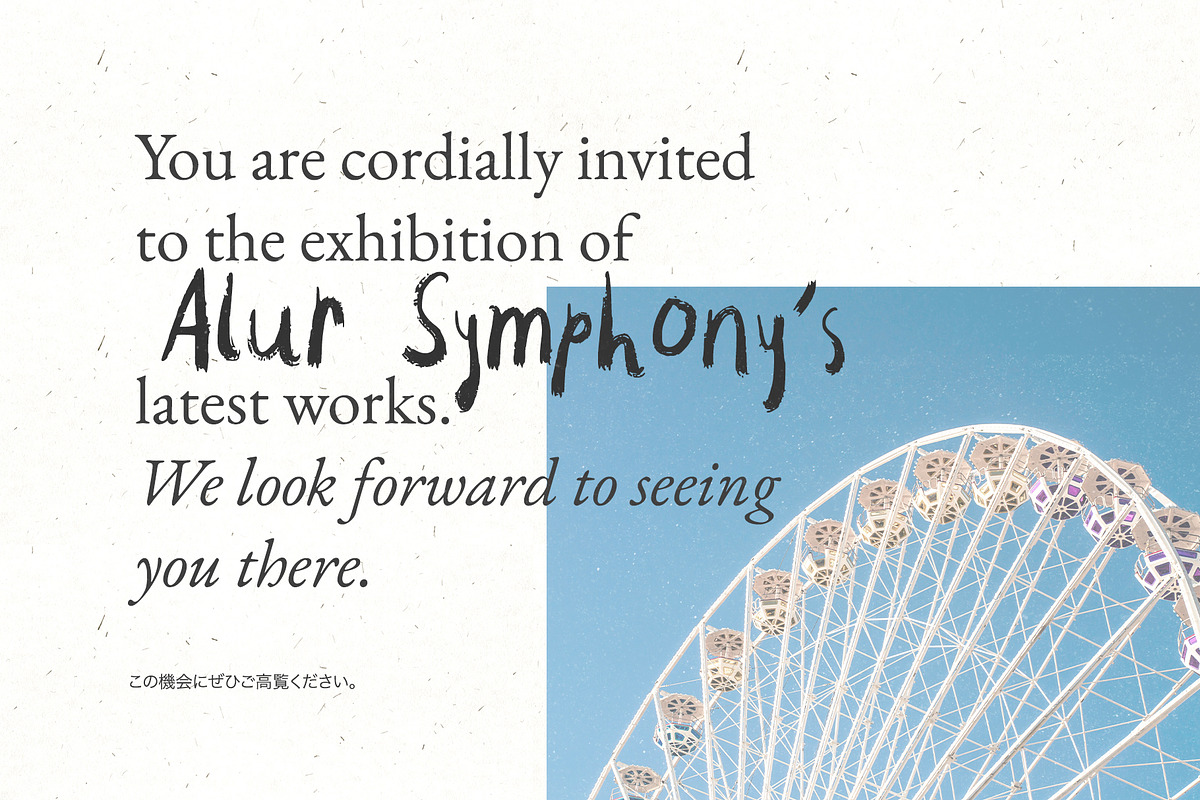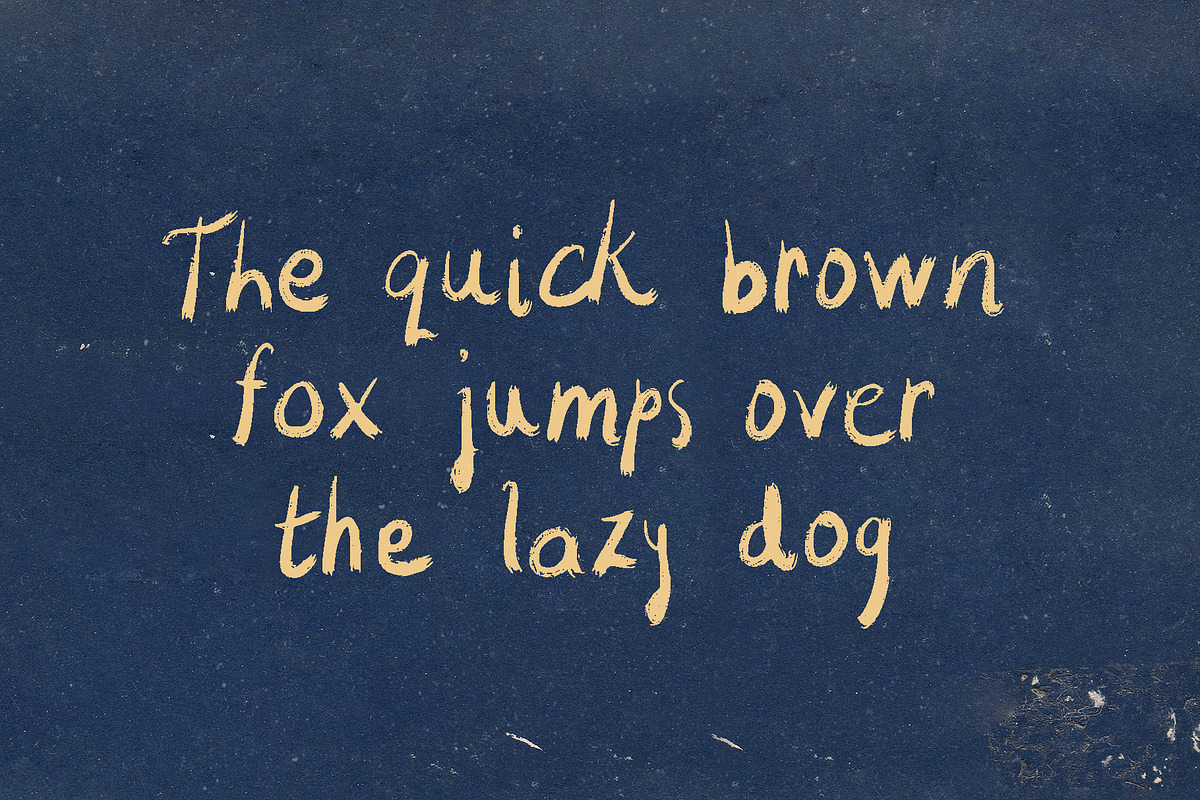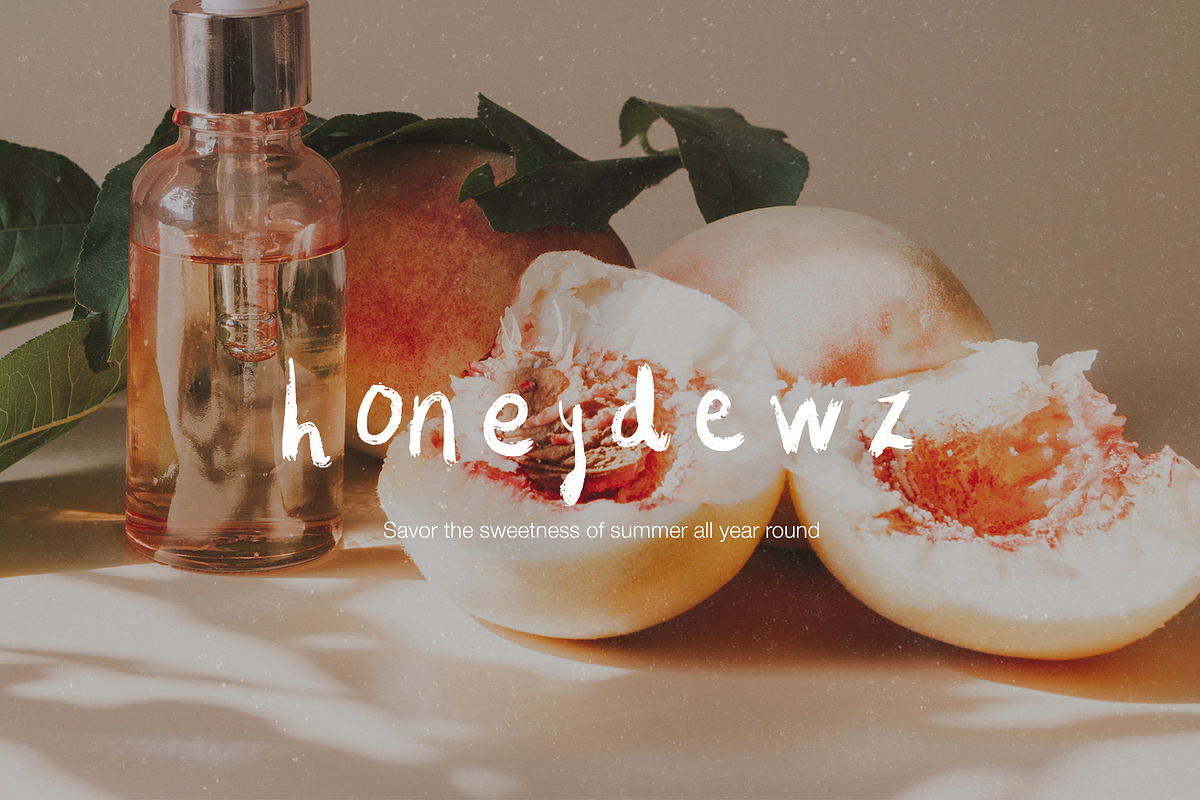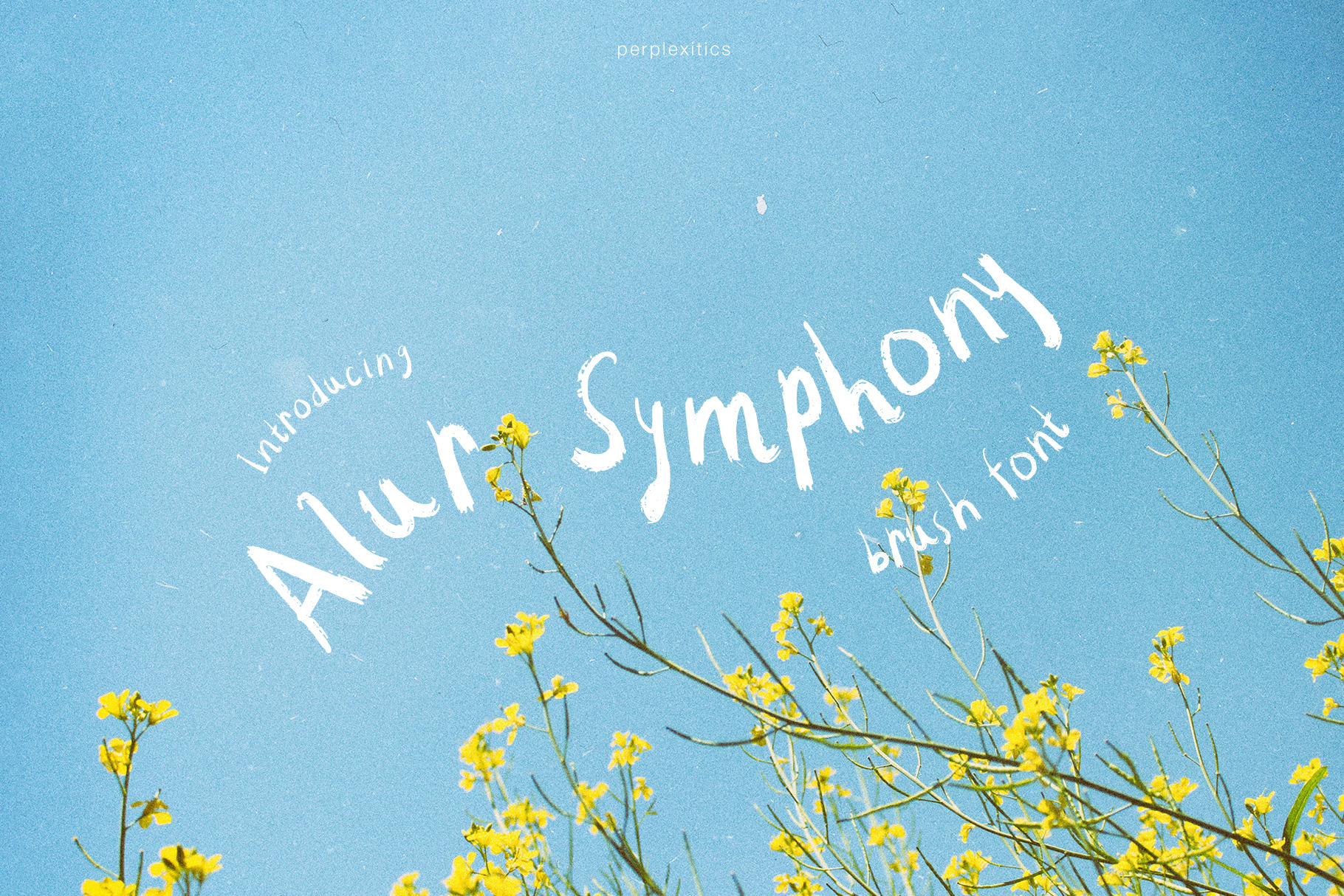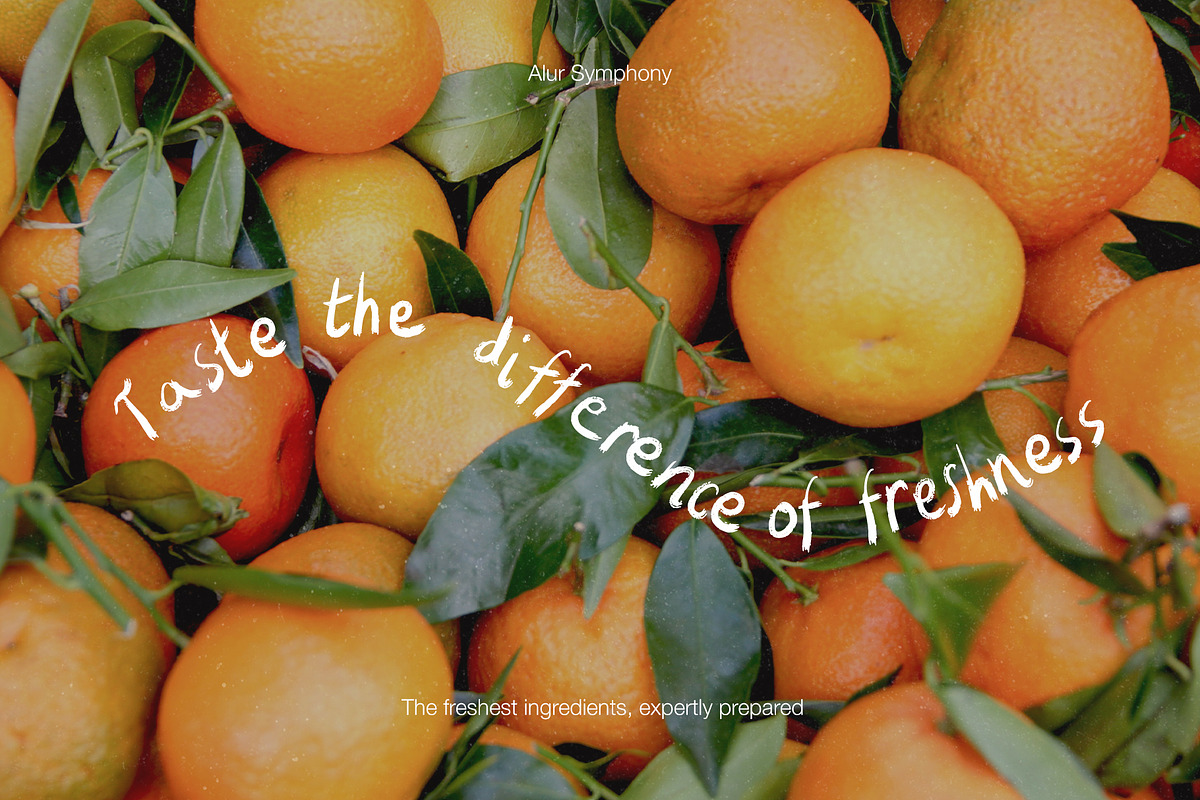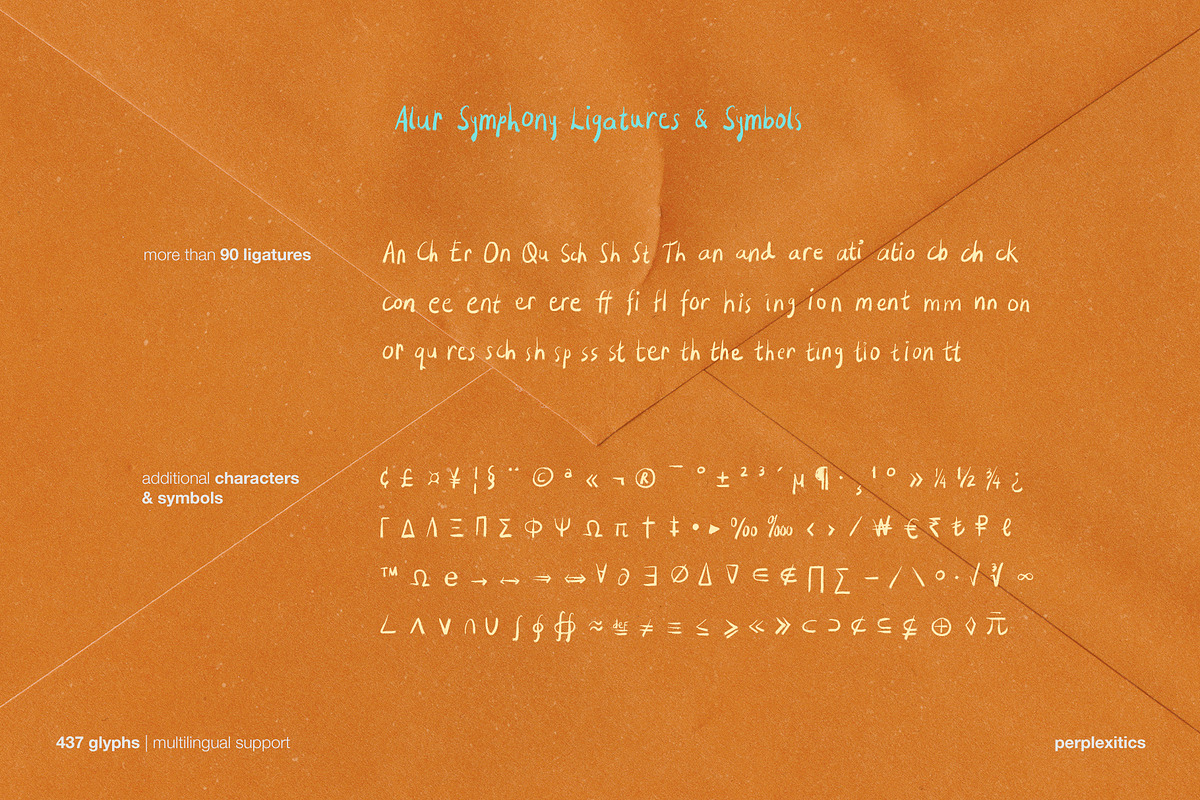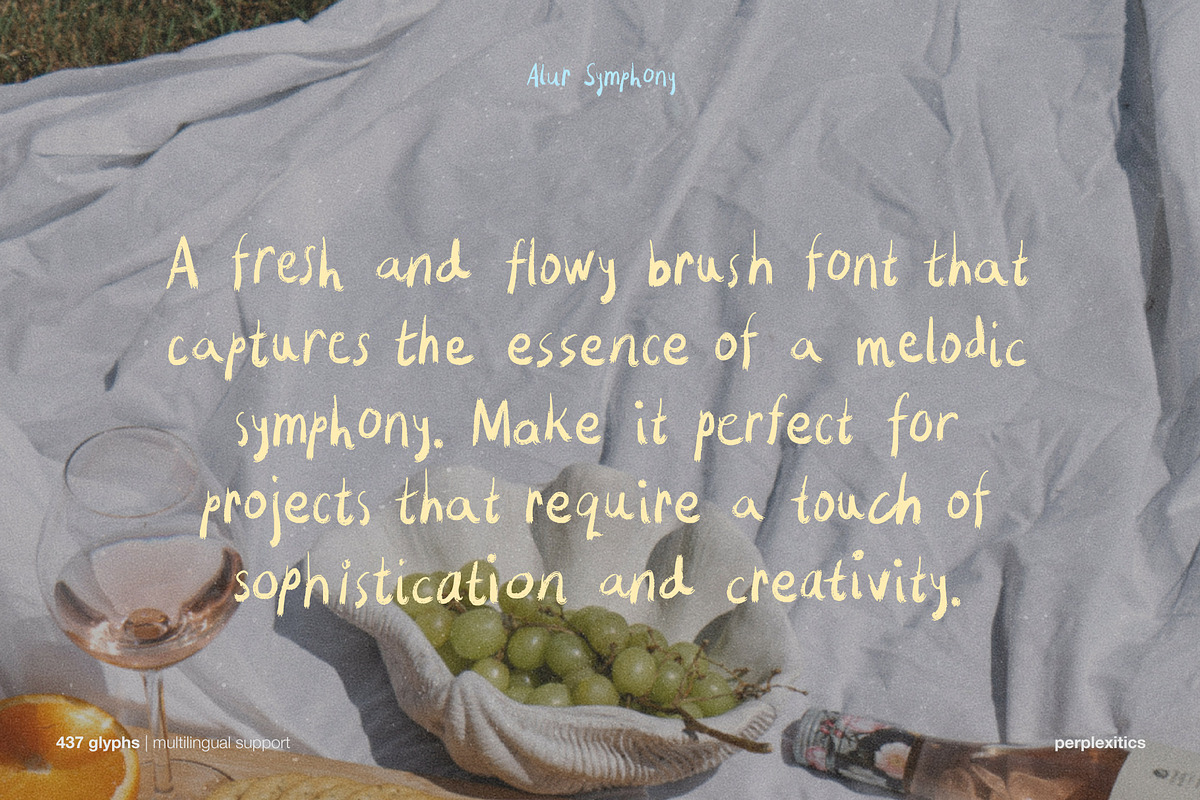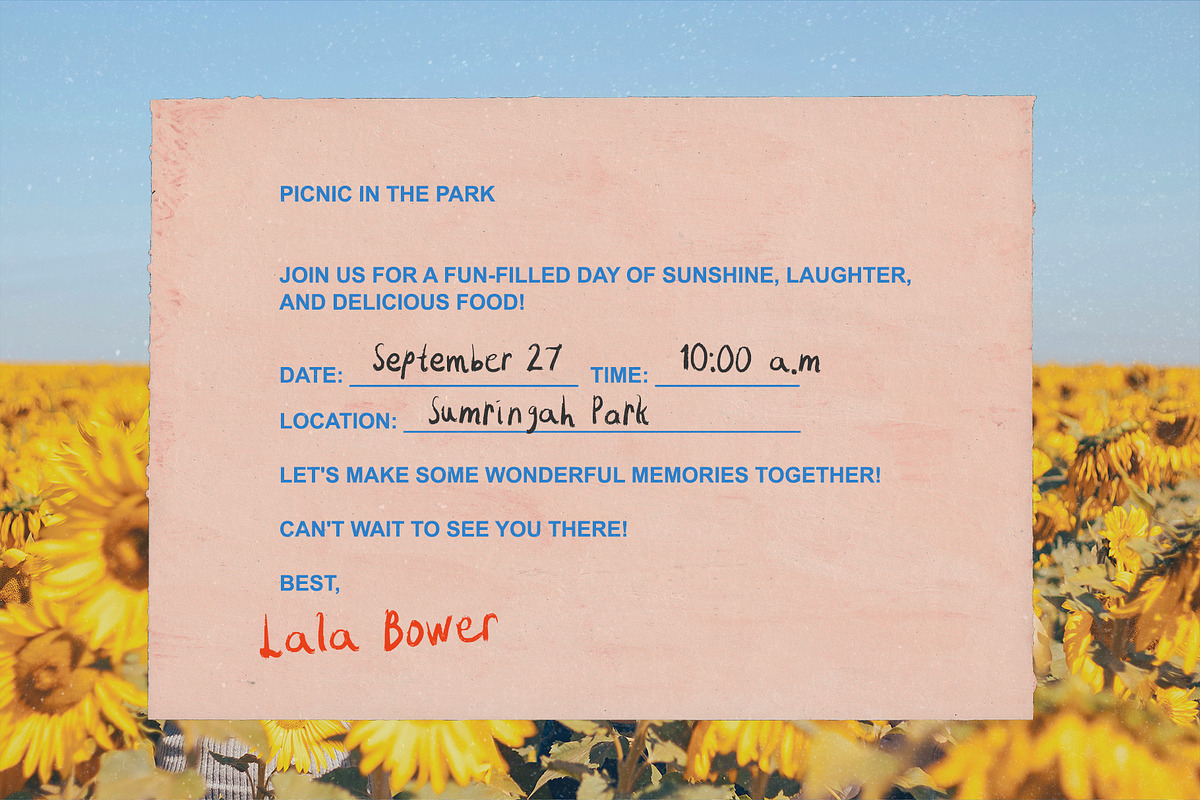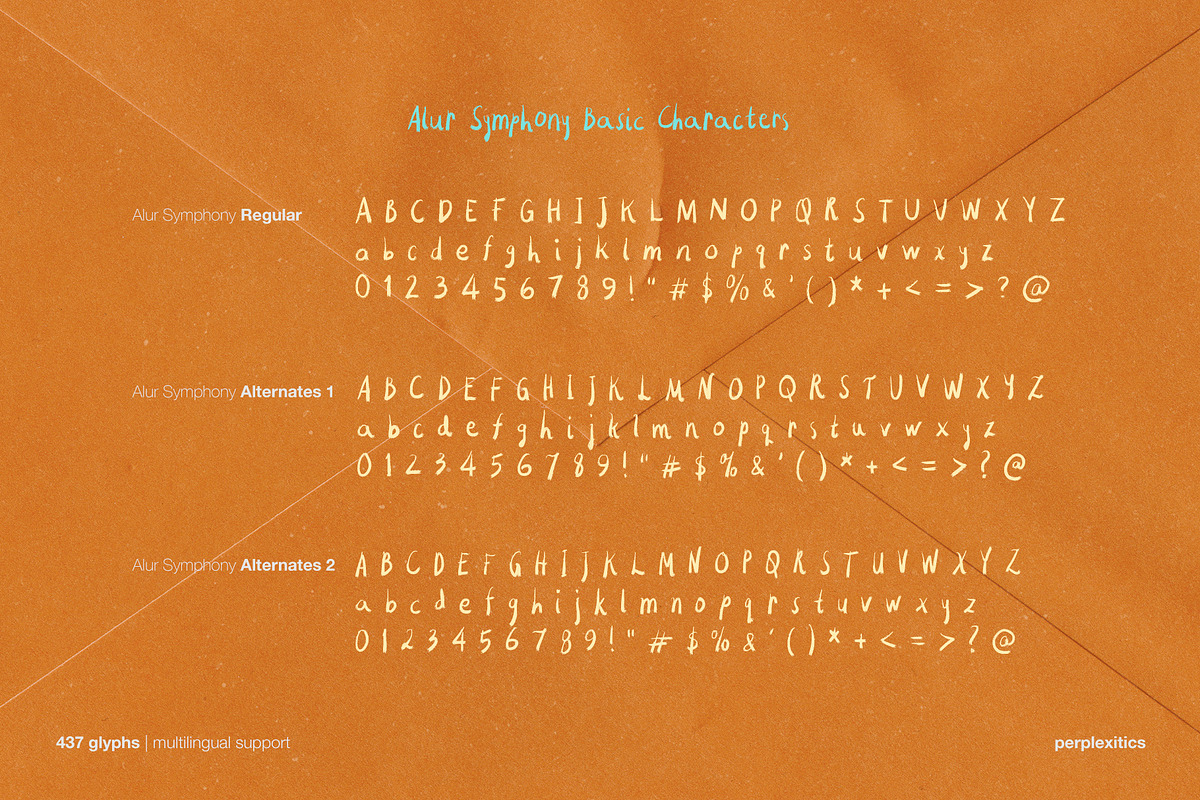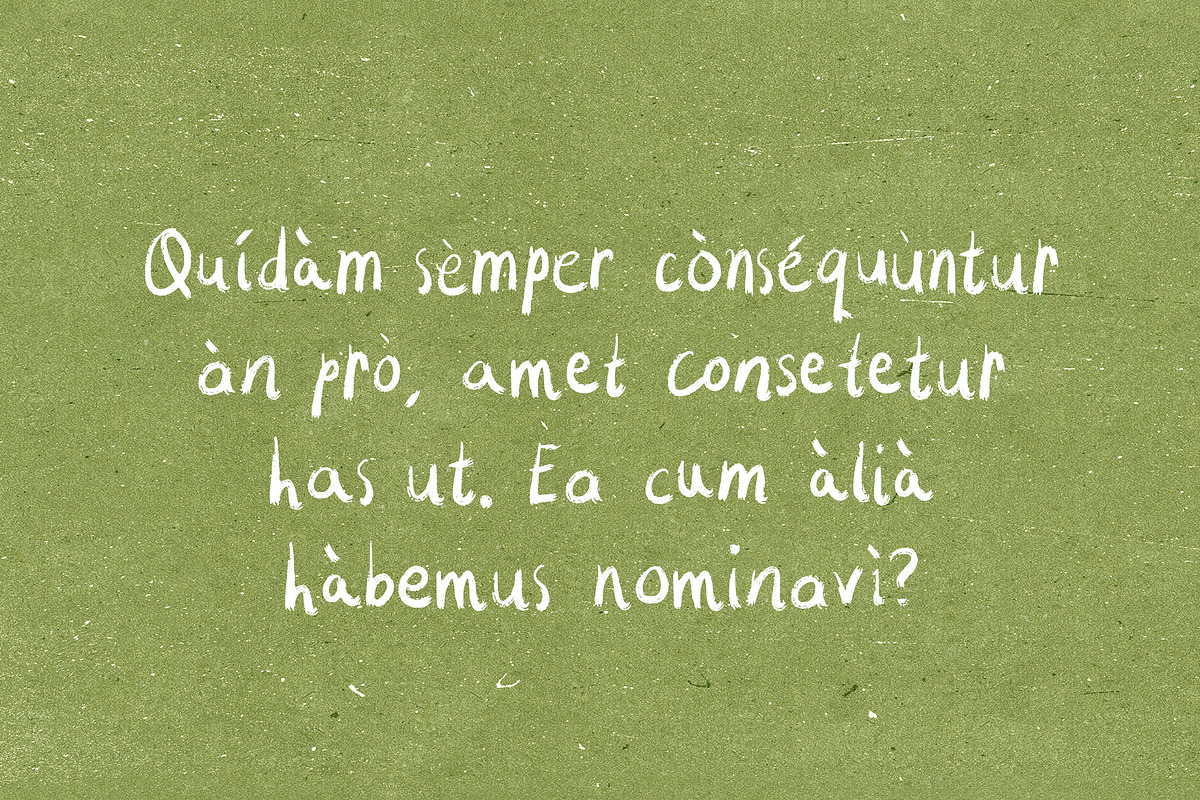
Alur Symphony Handwritten Brush Font
Alur Symphony is a fresh and flowy handwritten brush font that captures the essence of a melodic symphony. The font's organic nature and expressive character make it perfect for projects that require a touch of sophistication and creativity.
Alur Symphony Font is packed with everything you need, including uppercase and lowercase letters, numbers, and punctuation. Consists of 437 glyphs in 3 font alternates. Multilingual support.